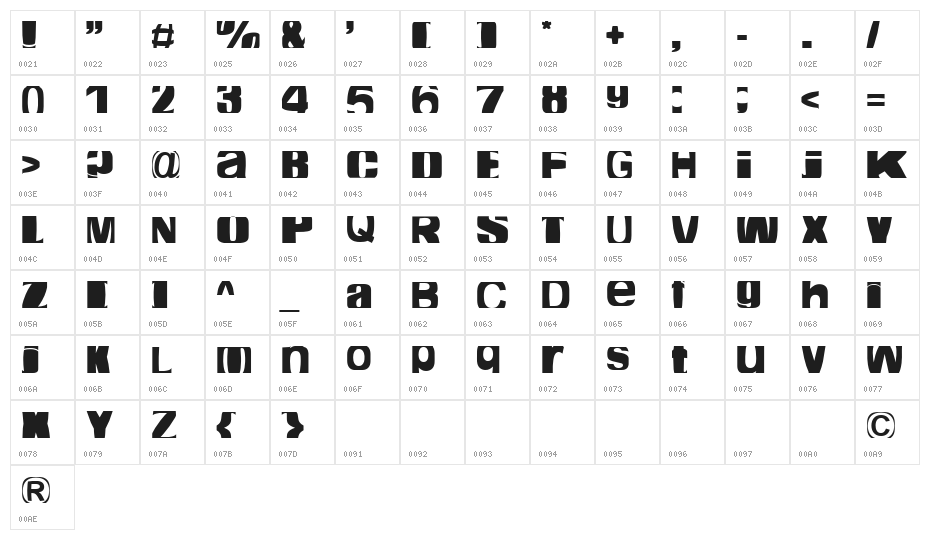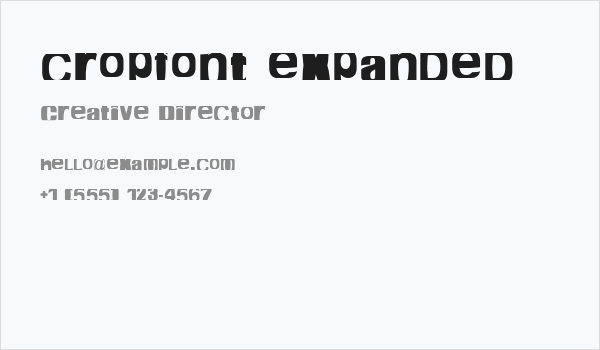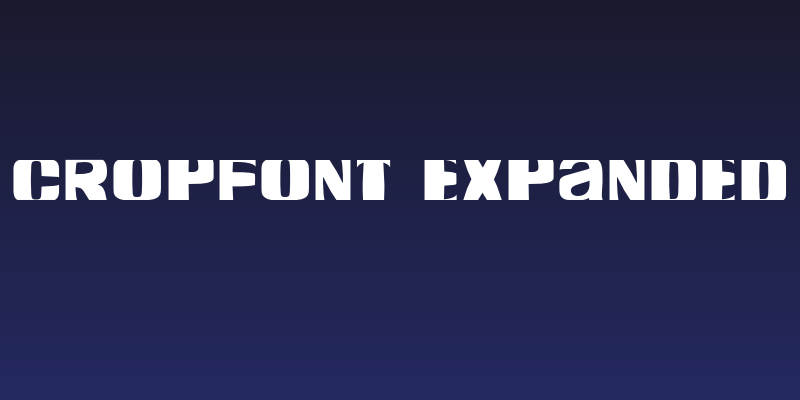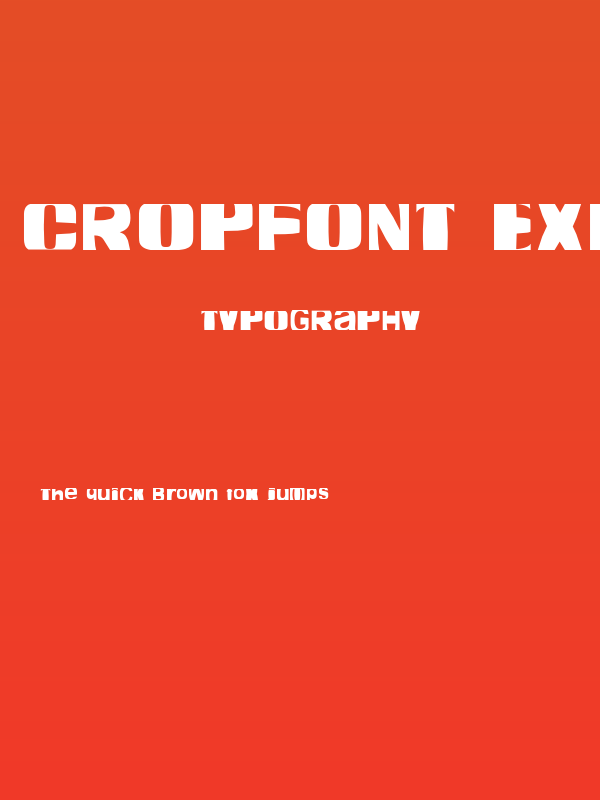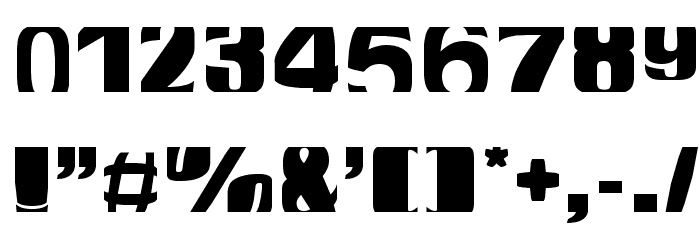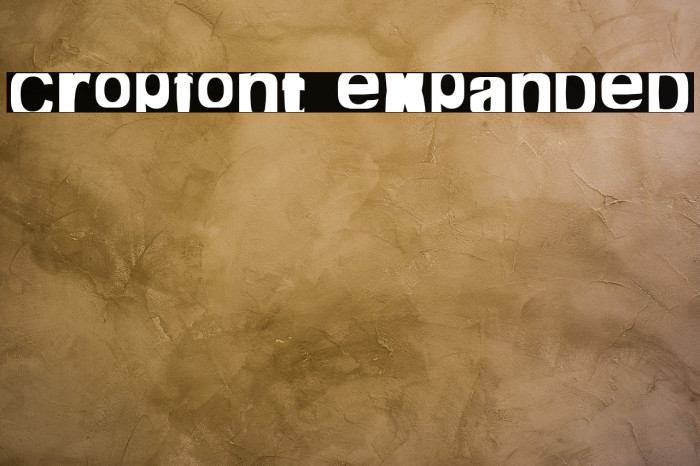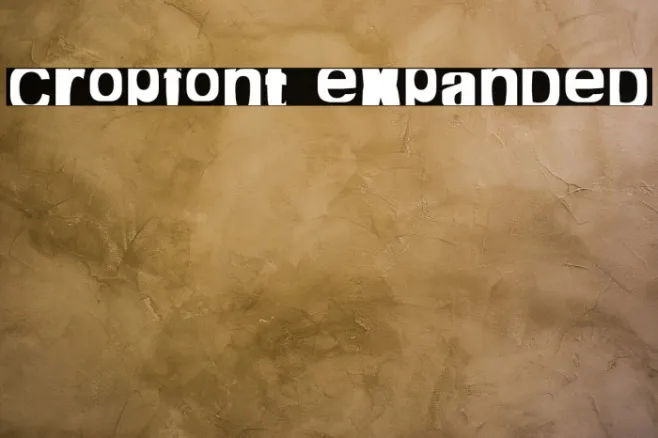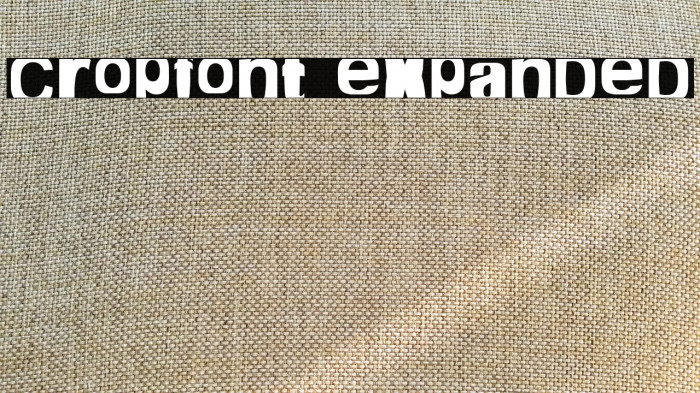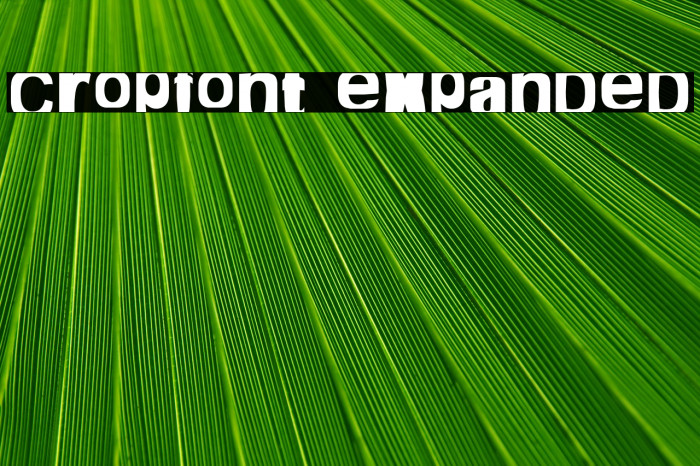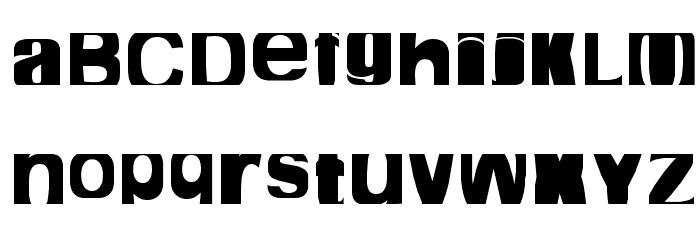
cropfont expanded Font
cropfont expanded Description
This font features a bold and striking design with a distinctly modern and decorative style. The characters are heavily stylized with unique cutouts and geometric shapes, creating a dynamic and eye-catching appearance. The uppercase and lowercase letters maintain a consistent design theme, with the uppercase letters being particularly bold and impactful. The numbers and special characters follow the same design principles, ensuring a cohesive look across all elements. The font's expanded width and high contrast in stroke thickness make it ideal for attention-grabbing headlines and display purposes.
| Proposed Projects | Ideal for posters, branding, advertising, and any project requiring a bold, modern aesthetic. |